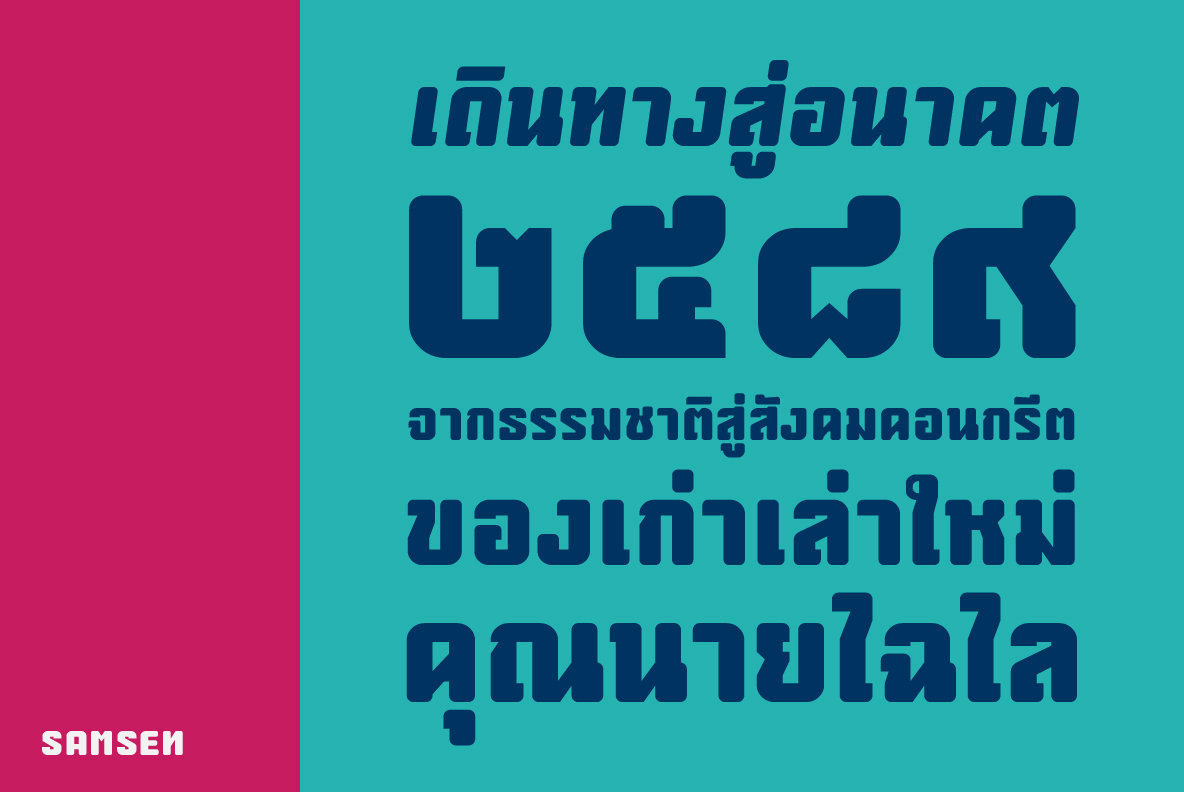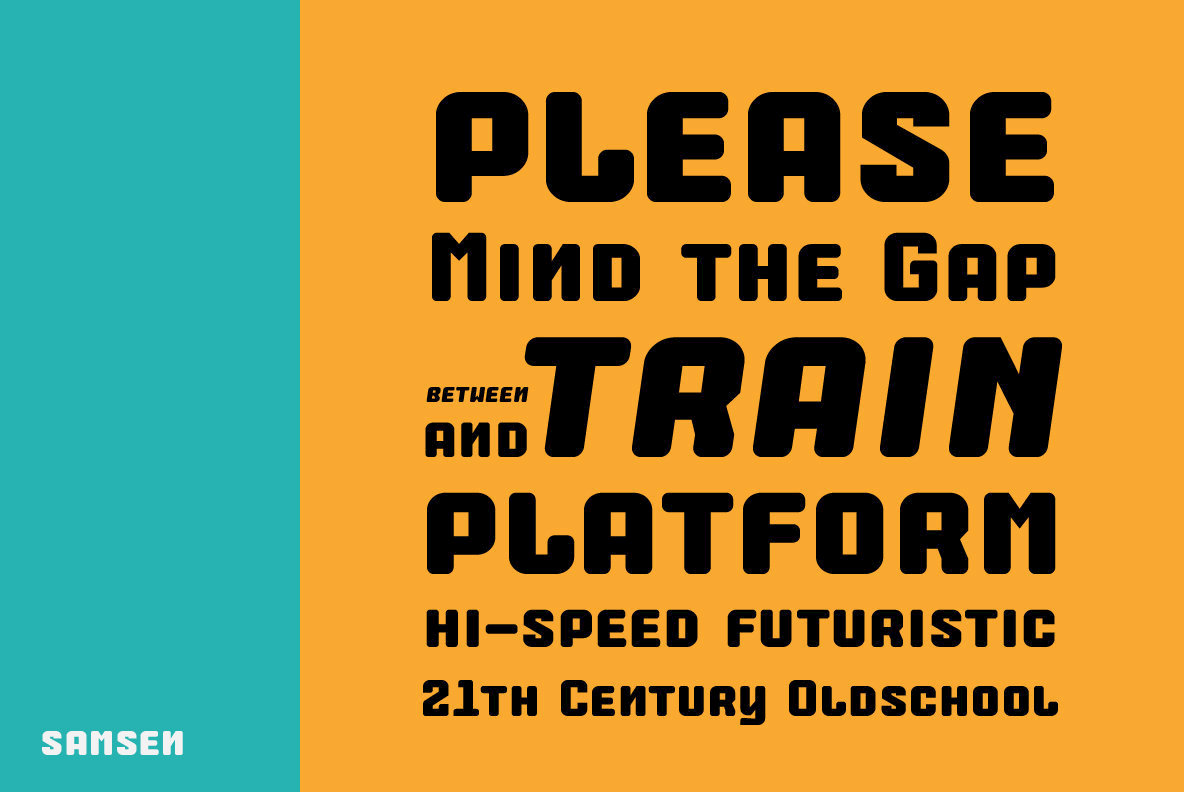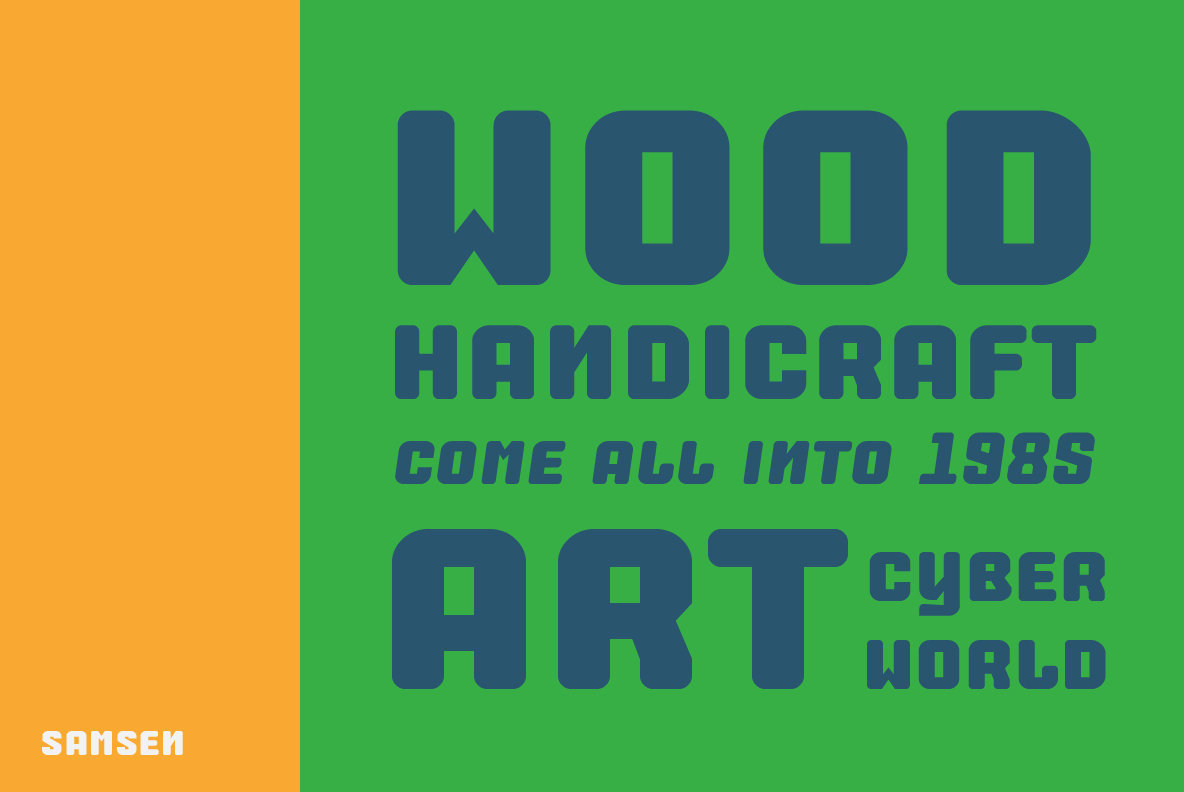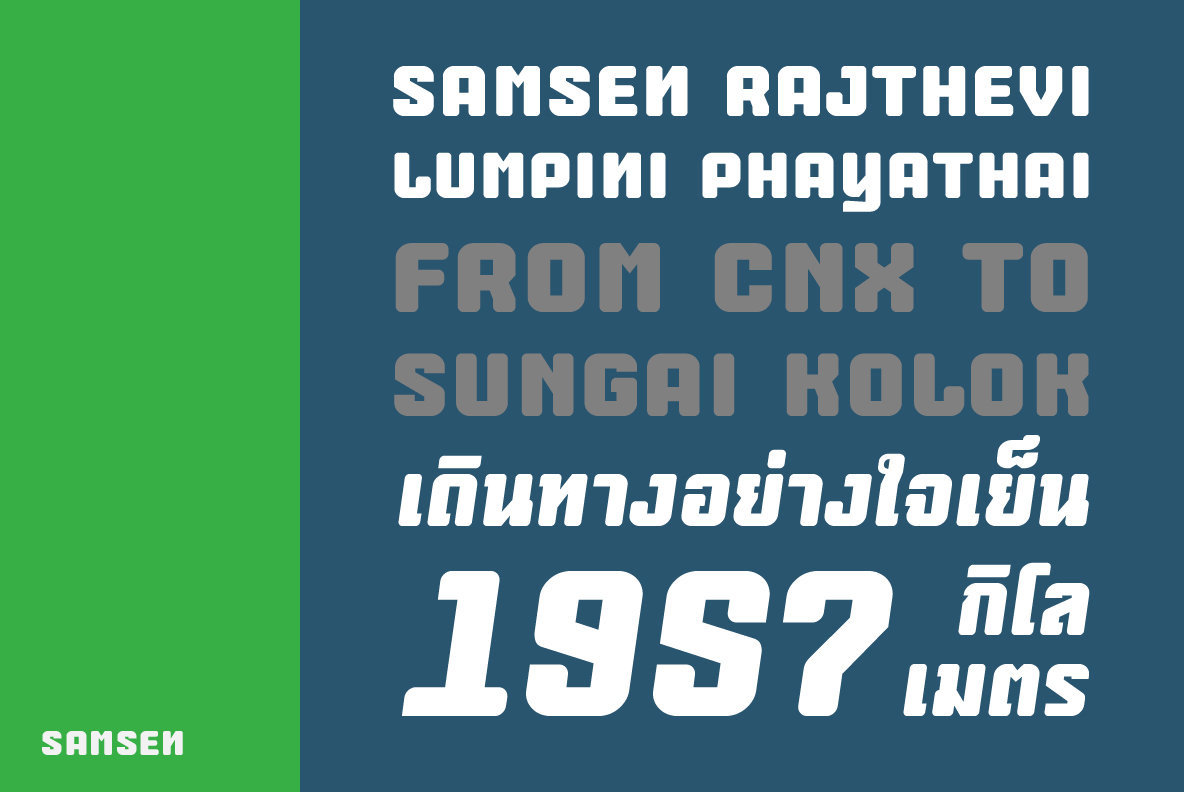
samsen Font
samsen Regular
samsen Italic
samsen is a retro style typeface inspired by the most important train station in Thailand. this is a 'past and future' font that suitable for all kind of message. samsen comes with OT features and support for Thai language.